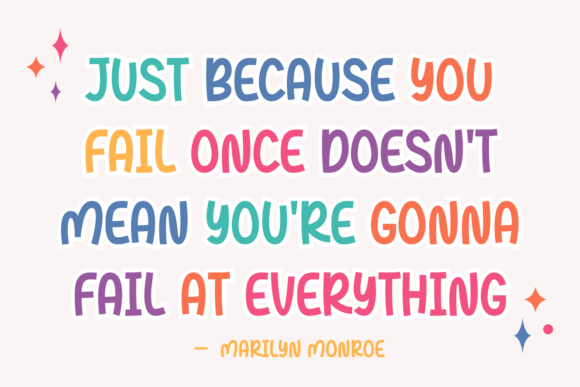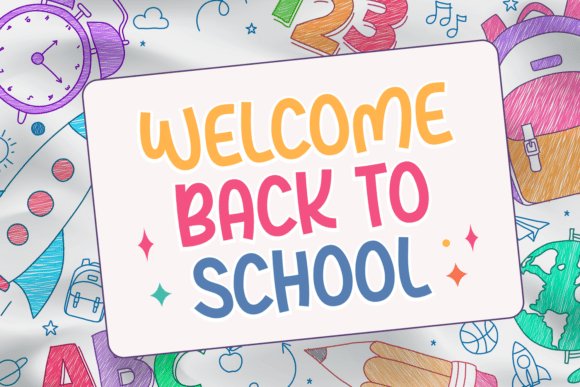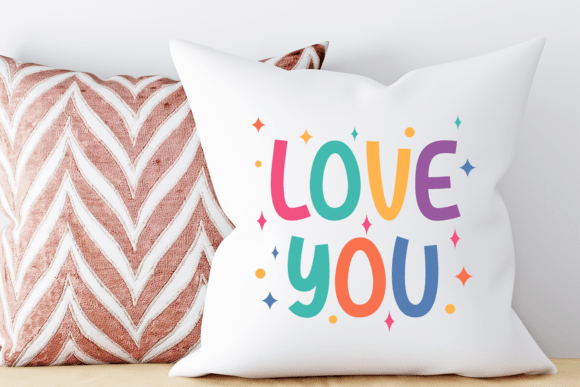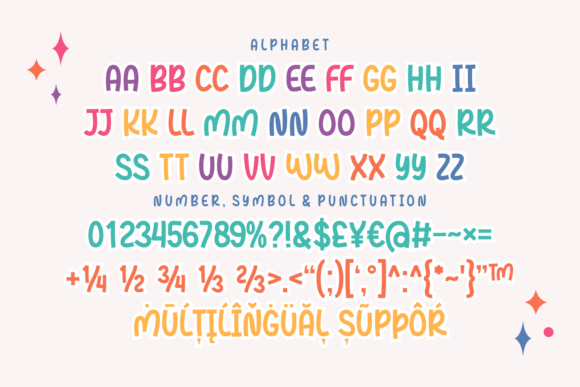
Dream Girls Font: Elevate Your Designs with a Bold and Endearing Typeface
Are you tired of using the same old fonts in your designs? Do you want to add a touch of boldness and personality to your creations? Look no further than Dream Girls, a display typeface that’s as endearing as it is audacious. This font is designed to breathe life into your designs, and in this article, we’ll explore what makes it so special.
What is Dream Girls Font?
Dream Girls is a display typeface that’s perfect for designers and crafters who want to add a unique touch to their work. This font is not just a collection of letters and numbers; it’s a tangible form of inspiration that pours its distinctive and captivating style into any design you hold dear. With Dream Girls, you can create bold and eye-catching designs that are sure to grab attention.
Key Features of Dream Girls Font
- Bold and Audacious: Dream Girls is a font that’s not afraid to make a statement. Its bold and audacious style is perfect for designers who want to create designs that stand out from the crowd.
- Endearing and Captivating: Despite its boldness, Dream Girls is also an endearing and captivating font. It’s perfect for creating designs that are both eye-catching and charming.
- Versatile: Dream Girls is a versatile font that can be used in a variety of designs, from posters and flyers to logos and branding materials.
- Easy to Read: Despite its bold style, Dream Girls is easy to read, making it perfect for designs where you want to make a statement without sacrificing legibility.
Why Should You Use Dream Girls Font?
So why should you use Dream Girls font in your designs? Here are just a few reasons:
- Adds Personality to Your Designs: Dream Girls is a font that’s full of personality, and it can add a unique touch to your designs.
- Perfect for Display Text: Dream Girls is a display typeface that’s perfect for creating eye-catching display text.
- Supports Multiple Languages: Dream Girls supports multiple languages, making it perfect for designers who work with international clients.
Using Dream Girls font in your designs is easy. Here are just a few tips:
- Use it as Display Text: Dream Girls is perfect for display text, such as headlines and titles.
- Pair it with Other Fonts: Dream Girls can be paired with other fonts to create a unique and eye-catching design.
- Experiment with Different Sizes: Dream Girls looks great in a variety of sizes, from small to large.
- Use it in Branding Materials: Dream Girls is perfect for creating branding materials, such as logos and business cards.
In conclusion, Dream Girls font is a bold and endearing typeface that’s perfect for designers and crafters who want to add a unique touch to their work. With its distinctive and captivating style, Dream Girls is sure to breathe life into your designs. Whether you’re creating posters, flyers, logos, or branding materials, Dream Girls is a font that’s sure to impress.